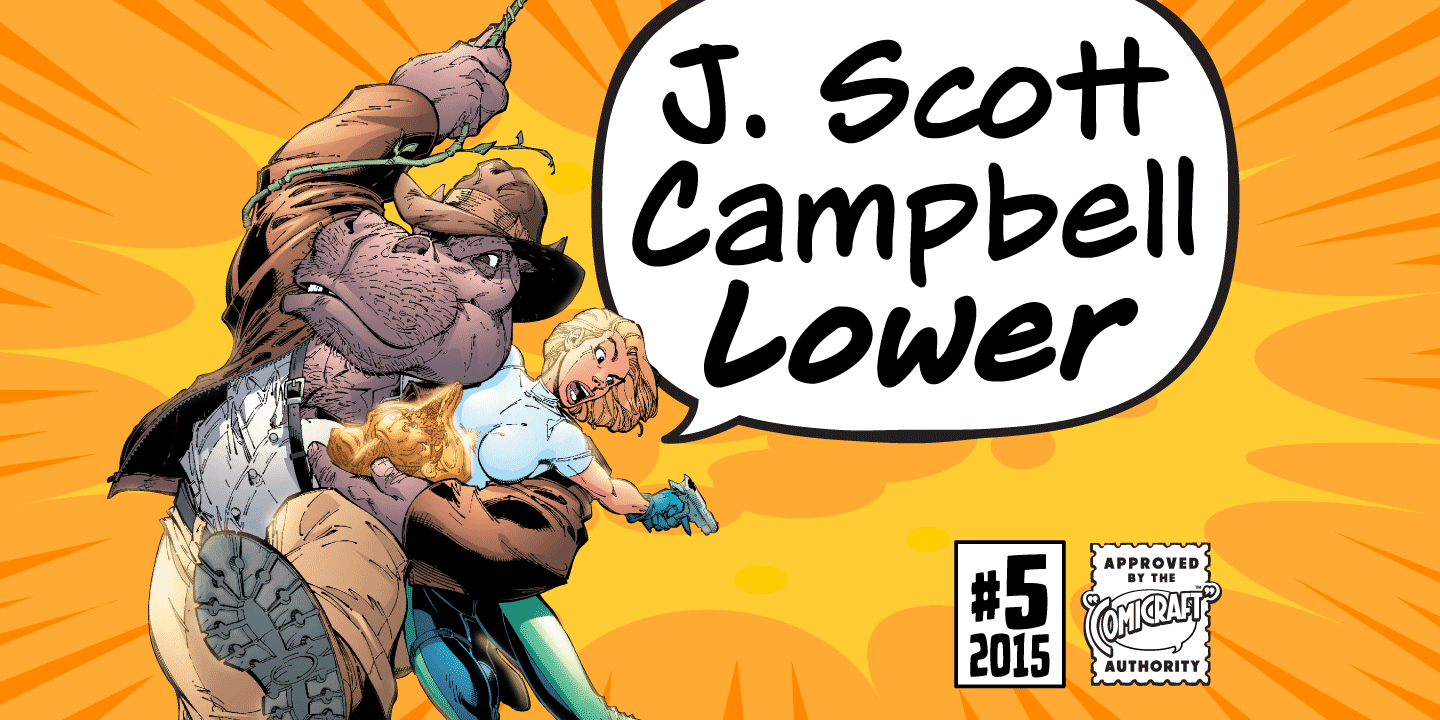
Discover the vibrant J. Scott Campbell Lower Font Free Download, a dynamic typeface perfect for adding a bold, artistic flair to your projects. This font captures the essence of comic-style typography, making it a favorite among designers seeking a unique, hand-drawn aesthetic. You can test its versatility for free, but for commercial use, purchasing a license is required.
This font is ideal for creating eye-catching comic book layouts, graphic novels, posters, and branded merchandise. Its playful yet professional design also suits digital media, such as social media graphics, YouTube thumbnails, and website headers, ensuring your content stands out.
Why is the J. Scott Campbell Lower Font Free Download so exciting? Its distinctive, energetic style brings a sense of fun and creativity, inspired by the iconic comic book art of J. Scott Campbell. The font’s bold lines and expressive curves make every word pop, perfect for grabbing attention and conveying personality.
The J. Scott Campbell Lower Font belongs to a family that includes variations like Upper, Condensed, and Bold, offering flexibility for diverse design needs. Whether you're crafting a superhero-themed project or a quirky branding campaign, these font variants ensure consistency and creativity.